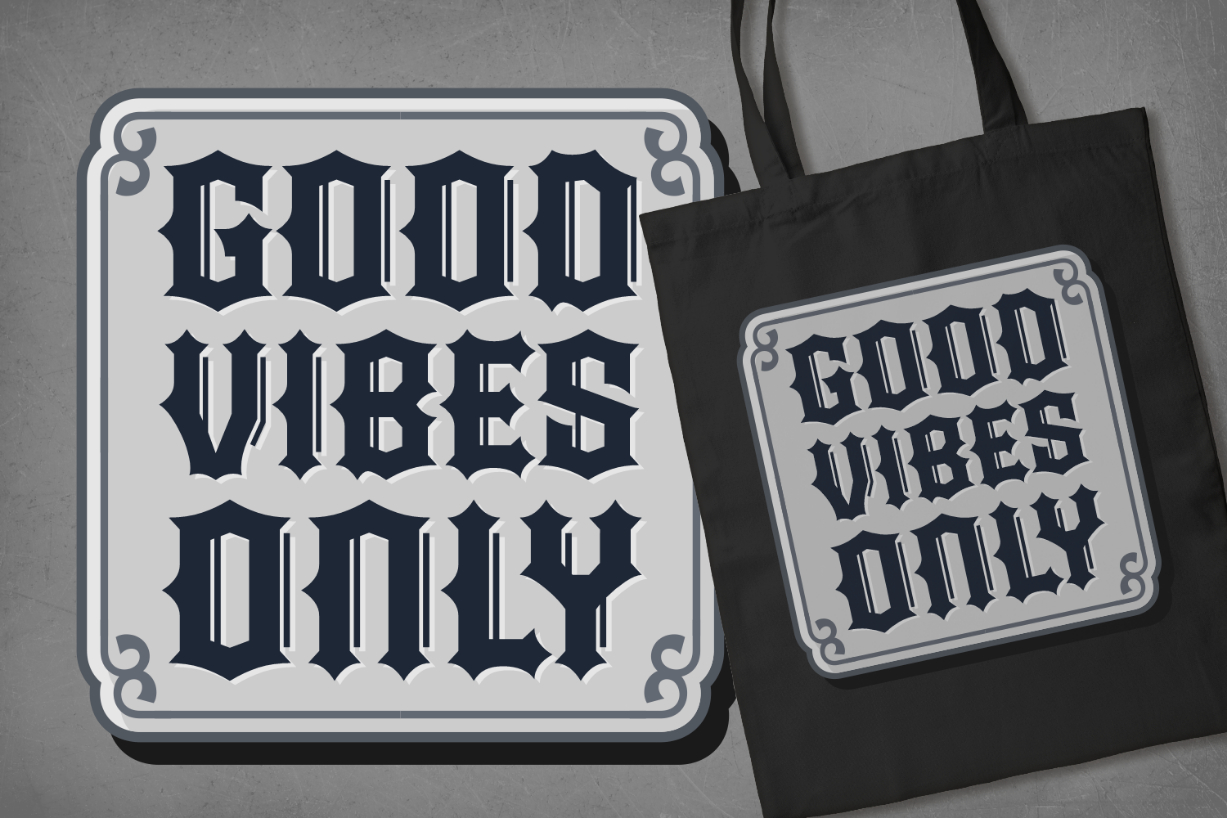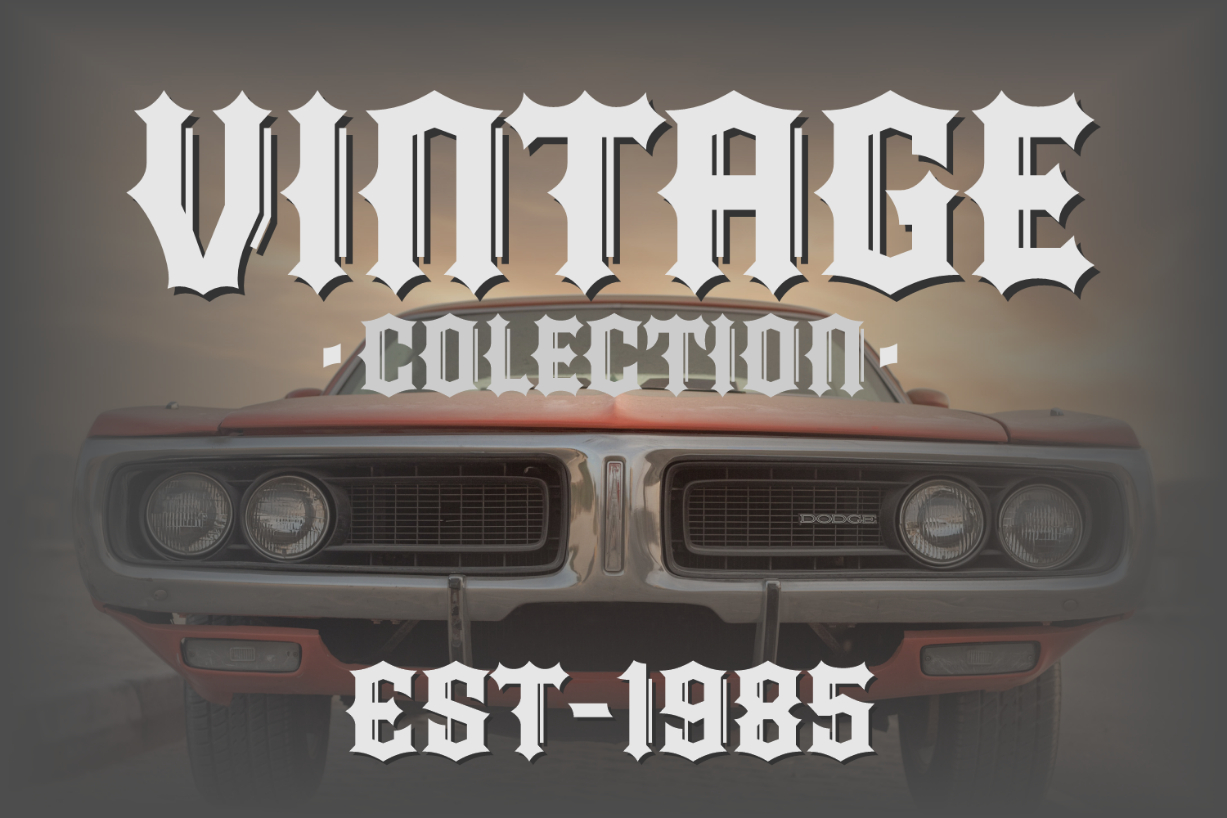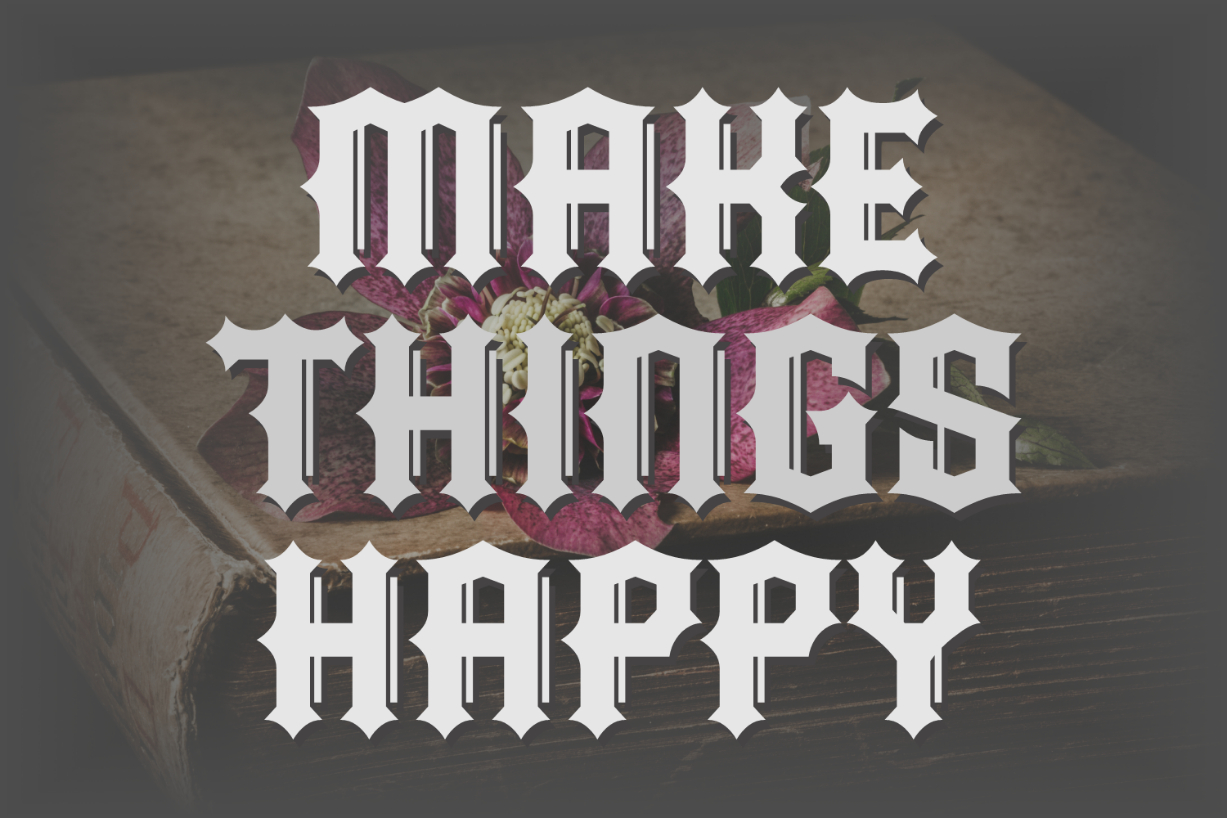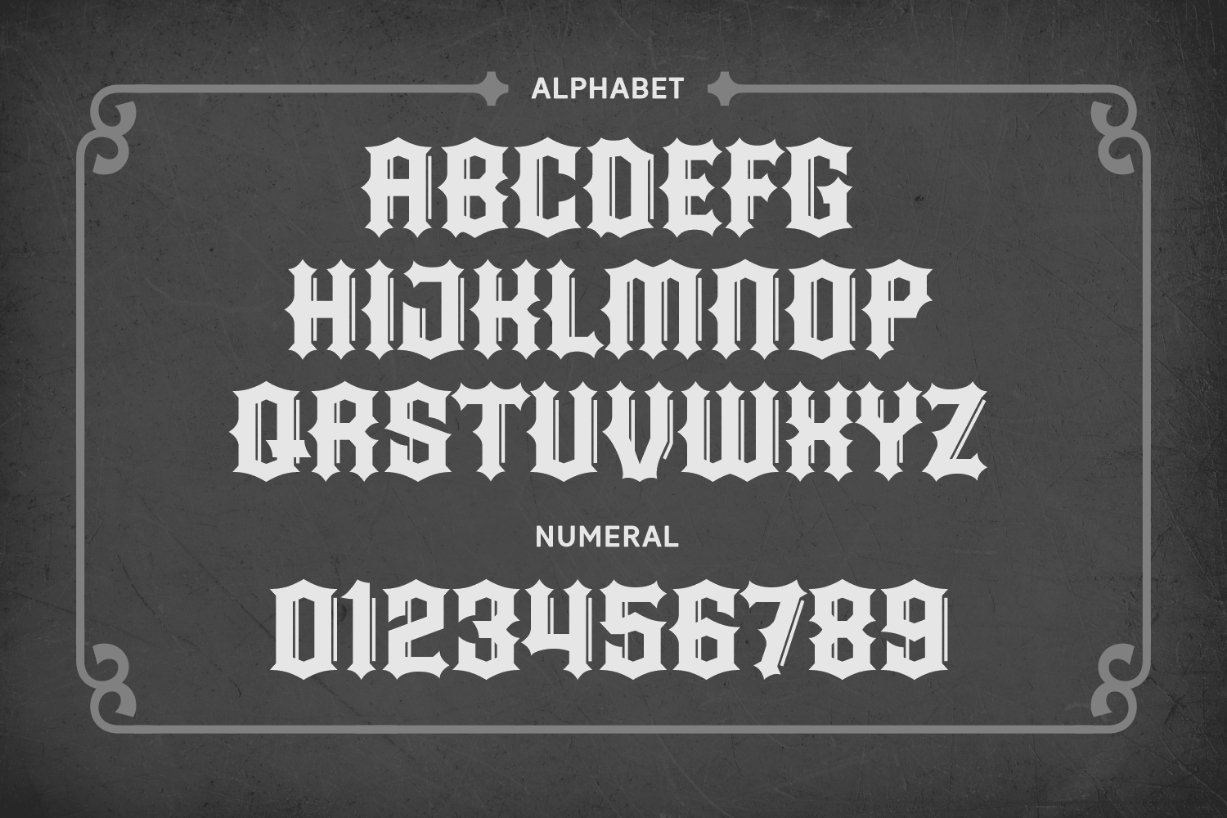
Hetha Specia Font
Hetha Specia is a thick and striking blackletter font. This bold typeface radiates strength and power and is an excellent choice for projects that require impressive typography. Use it to create outstanding posters, advertisements, logos, headers, titles, t-shirts, signage, and more.